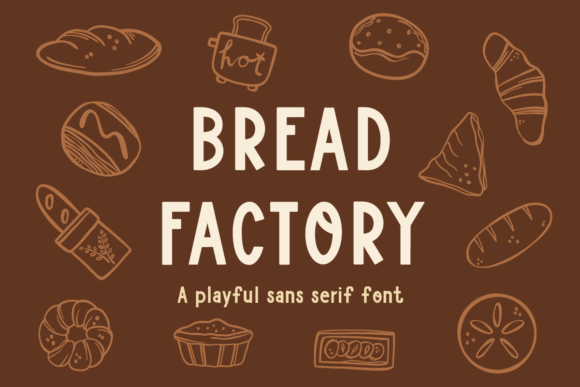
Journey into the realm of visual delight, where letters dance across the page with whimsical charm and captivating elegance. Introducing Bread Factory Font, a sans-serif masterpiece crafted by the creative genius of Nyla.studio, specifically designed to transform your note cards into extraordinary works of art.
Bread Factory Font is not just a collection of characters; it's an invitation to let your imagination run free, to explore the boundless possibilities of creative expression. With its playful square style, this font breathes life into every word, adding a touch of whimsy and joy to your messages.
Picture this: a heartfelt note penned with the Bread Factory Font, its playful curves and sharp angles harmoniously blending to create a visual symphony. The recipient's eyes will be drawn to the captivating dance of letters, each character a tiny masterpiece, leaving an indelible mark on their memory.
But Bread Factory Font is not just limited to note cards; it's a versatile chameleon, effortlessly adapting to a myriad of creative endeavors. Unleash your inner artist and let your creativity soar as you design posters that pop, logos that leave a lasting impression, greeting cards that warm hearts, and packaging that demands attention.
With Bread Factory Font, every project becomes an opportunity to showcase your unique style and captivate your audience. It's the perfect font for adding a playful touch to illustrations, breathing life into digital designs, and crafting social media posts that stand out from the crowd.
Don't settle for ordinary fonts that blend into the background. Embrace the playful spirit of Bread Factory Font and watch as your creative projects blossom into captivating works of art. Let your imagination run wild and experience the joy of creating with a font that makes every word a celebration.
So, embark on this typographic adventure today and discover the endless possibilities that await you with Bread Factory Font. Transform your creative vision into a reality and leave a lasting impression on all who encounter your designs.